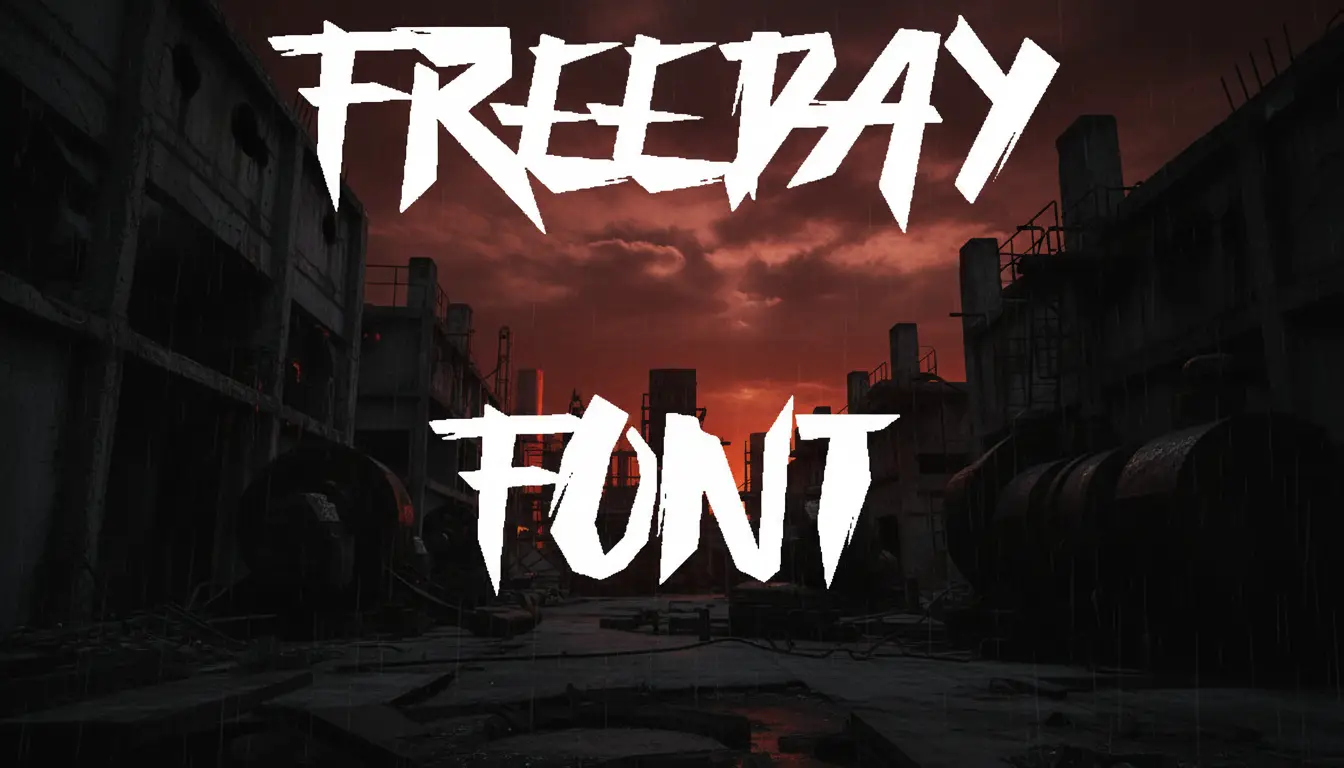
FreeDay Font
FreeDay is a horror font. It looks like it belongs on a horror film poster, with shapes meant to make people a little uneasy. You can download it for free and test it with your own words in the preview above.
FreeDay has the full alphabet in upper and lowercase. There are no numbers, so you'll need a second font for dates, prices or phone numbers. Punctuation is limited, so look at the character map if you need a specific symbol. There are no accented letters like é or ñ, so it's best kept to English text.
Designers usually reach for fonts like FreeDay when they're making Halloween flyers, horror movie titles and game covers. Horror fonts hit hardest on dark backgrounds with plenty of empty space around the title.
No. FreeDay has no accented letters such as é, ñ or ü, so it's best for English text.
Use a plain, narrow sans serif for credits or details so the title does all the scaring.